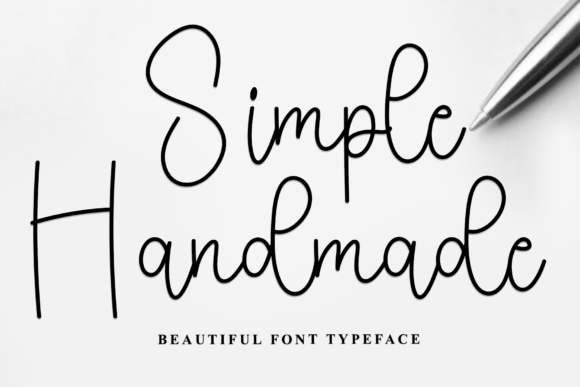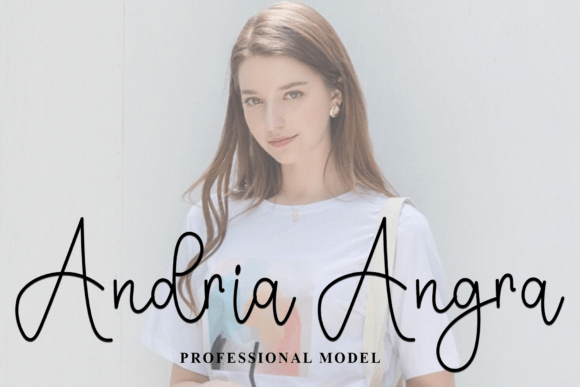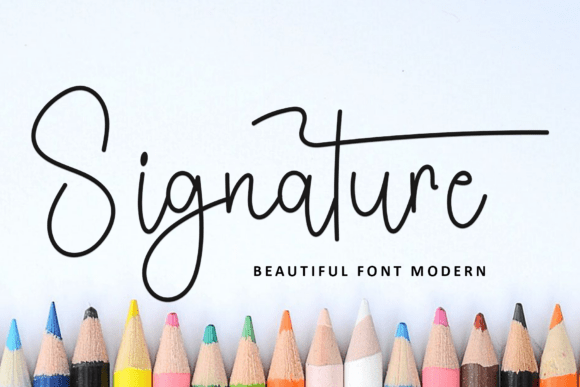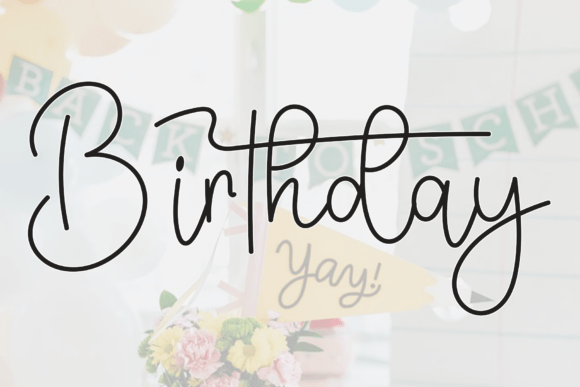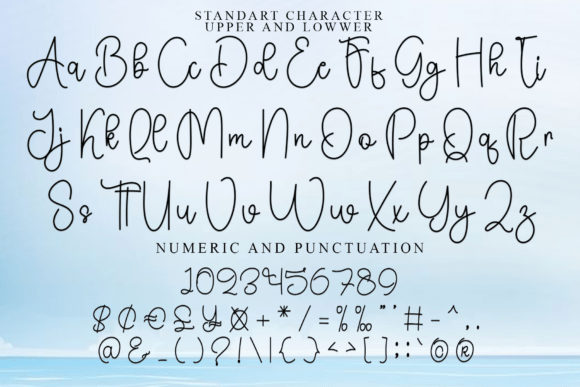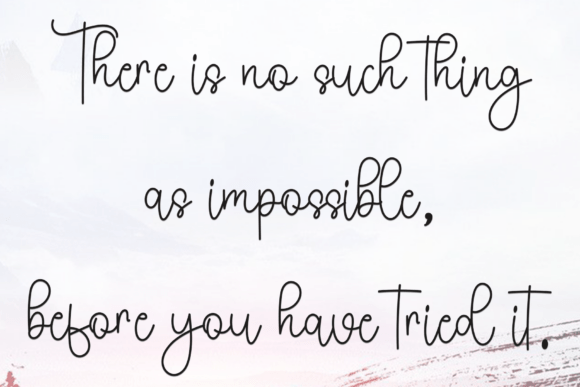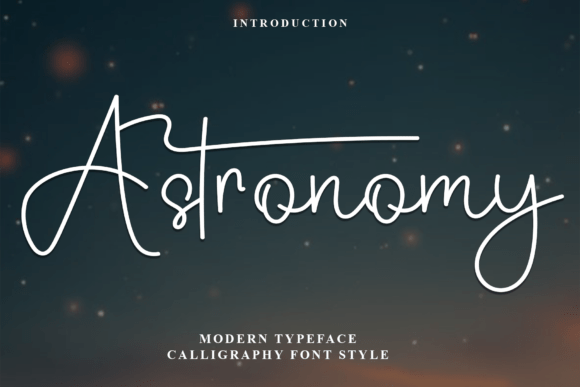
Astronomy Font: Add a Touch of Holiday Magic to Your Designs
As the holiday season approaches, designers and crafters are on the lookout for typography that captures the festive spirit. Look no further than the Astronomy Font, a merry and decorative typeface that’s perfect for adding a touch of enchantment to your designs. With its whimsical flair and nostalgic ambiance, this font is sure to become a favorite in your collection.
What is Astronomy Font?
Astronomy Font is a beautifully crafted typeface that’s specifically designed to evoke the magic of the holiday season. Its decorative elements and whimsical flair make it perfect for a variety of projects, from greeting cards and gift tags to holiday-themed posters and social media graphics. Whether you’re a designer, crafter, or DIY enthusiast, this font is sure to bring a smile to your face and a touch of festive fun to your creations.
Key Features of Astronomy Font
So what sets Astronomy Font apart from other typefaces? Here are just a few of its key features:
• Decorative elements: Astronomy Font features a range of decorative elements, from intricate swirls and twirls to festive holly leaves and berries. These elements add a touch of whimsy and fun to your designs, making them perfect for holiday-themed projects.
• Whimsical flair: This font has a playful, whimsical feel that’s sure to capture the spirit of the holiday season. Its letters and ligatures are designed to evoke a sense of nostalgia and wonder, making it perfect for creating designs that feel festive and fun.
• PUA encoded: Astronomy Font is PUA (Private Use Area) encoded, which means you can access all of its amazing glyphs and ligatures with ease. This makes it simple to create beautiful, professional-looking designs that showcase the font’s full range of features.
Uses for Astronomy Font
So what can you use Astronomy Font for? The possibilities are endless! Here are just a few ideas to get you started:
• Greeting cards: Create beautiful, festive greeting cards for friends and family using Astronomy Font. Its decorative elements and whimsical flair make it perfect for holiday cards, birthday cards, and more.
• Gift tags: Add a touch of magic to your gift tags with Astronomy Font. Its intricate swirls and twirls make it perfect for creating beautiful, professional-looking tags that will make your gifts stand out.
• Holiday-themed projects: Whether you’re creating posters, social media graphics, or website headers, Astronomy Font is perfect for adding a touch of holiday magic to your designs.
Tips for Using Astronomy Font
Here are a few tips for getting the most out of Astronomy Font:
• Experiment with sizes: Astronomy Font looks great in a range of sizes, from small and delicate to large and bold. Experiment with different sizes to find the one that works best for your design.
• Mix and match: Don’t be afraid to mix and match Astronomy Font with other typefaces to create a unique and eye-catching design.
• Play with colors: Astronomy Font looks great in a range of colors, from bright and bold to soft and pastel. Experiment with different colors to find the one that works best for your design.
Astronomy Font is a beautifully crafted typeface that’s perfect for adding a touch of holiday magic to your designs. With its decorative elements, whimsical flair, and PUA encoding, it’s the perfect choice for designers, crafters, and DIY enthusiasts who want to create festive and fun designs. So why wait? Download Astronomy Font today and let your typography shine with the magic of the holiday season!